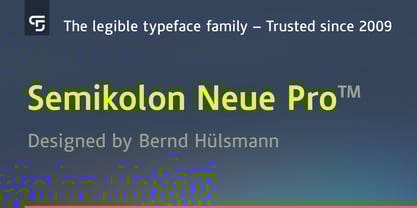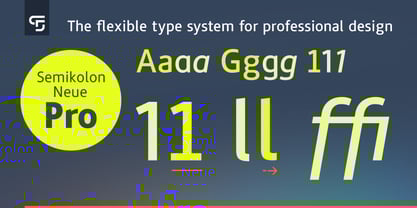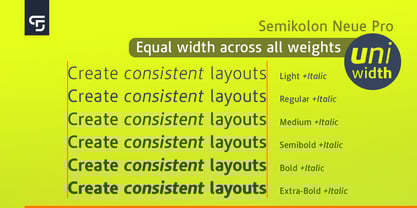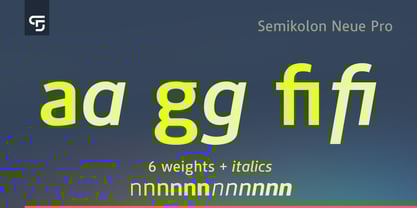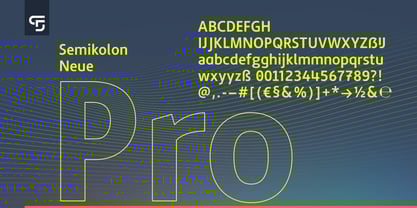
Semikolon Neue Pro
The Semikolon Neue Pro Font Family was designed by Bernd Hülsmann and published by Semikolon Fonts. Semikolon Neue Pro contains 12 styles and family package options. More about this family
Legibility reimagined – Semikolon Neue Pro reduces the risk of confusing similar characters and, with its clear letterforms, brings together motivation and truly accessible reading for everyone. Trusted since 2009 – expanded and refined in 2025. Semikolon Neue Pro – The flexible type system for professional design. Featuring alternate forms, extensive OpenType features, tabular figures, and true italics. Ideal for corporate identity, interfaces, and editorial design. Semikolon Neue Pro comes in six weights with matching italics – 12 fonts for maximum creative flexibility.
Semikolon typefaces are characterized by clearly distinguished letterforms. They were developed to minimize confusion between similar characters, thereby supporting reading motivation and the learning process. Thanks to their high legibility, Semikolon fonts are used in numerous books — including publications by Loewe Verlag — as well as in adult education centers, other educational institutions, and learning apps for all age groups. Since 2009, the German Federal Association for Literacy and Basic Education has been using Semikolon Plus, a typeface from the Semikolon family, across various media for reading materials as well as informational and teaching resources in adult education. Learners in literacy courses particularly benefit from the fonts’ excellent legibility and clearly designed letterforms. The name “Semikolon” is derived from the punctuation mark of the same name (Greek for “half colon”), which separates sentence parts with deliberate weight—reflecting the consciously differentiated and clearly separated letterforms of Semikolon typefaces.